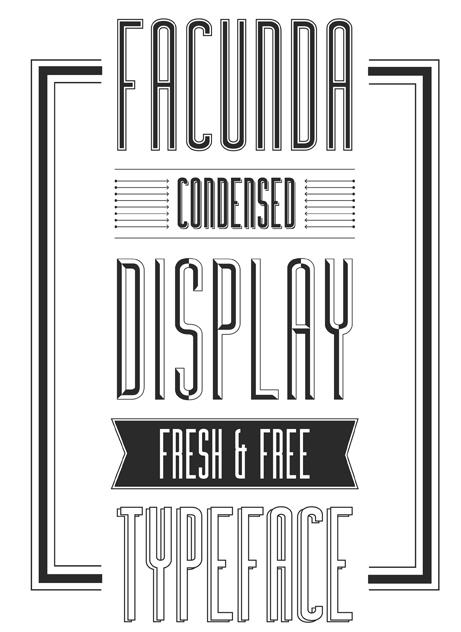
Font Frenzy: Facunda – Free!
Today’s type-alicious treat is Facunda, a versatile sans serif font family. In the download, you’ll get regular, italic, shadow, alternate, and alternate italic. The font would fit certain types of nostalgia or retro designs, but there’s enough modernity here that you could use it in combination with other fonts (like script). Best of all, the license is OK and free for commercial use. You’ll see a sample of Facunda below. Have fun!
facunda